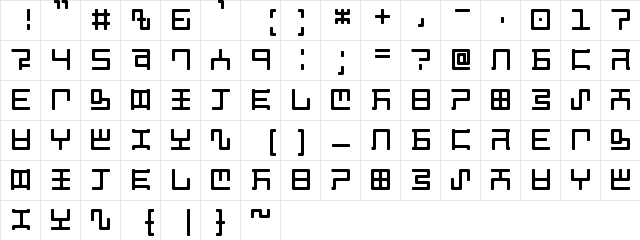
Magzetician Regular
| Designer | Jayvee D. Enaguas (Grand Chaos) |
Design Context for Magzetician Typeface
Magzetician is a composed and adaptable typeface that performs quietly and consistently across a wide range of design contexts.